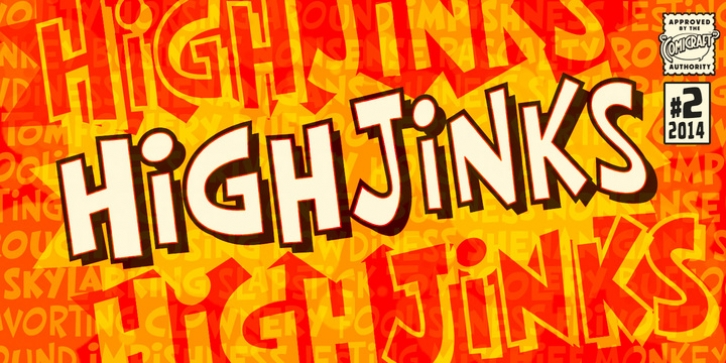
It’s jaunty and flaunty and up to no good! It’s a child born of fairly odd parents and alway looking for the good kind of trouble. It'll get you out of the red and into the pink like a panther pawning diamonds! Comicraft’s John Roshell has slipped his hands into the gloves of the Phantom Font Finagler and there’s HighJinks ahead to be sure!